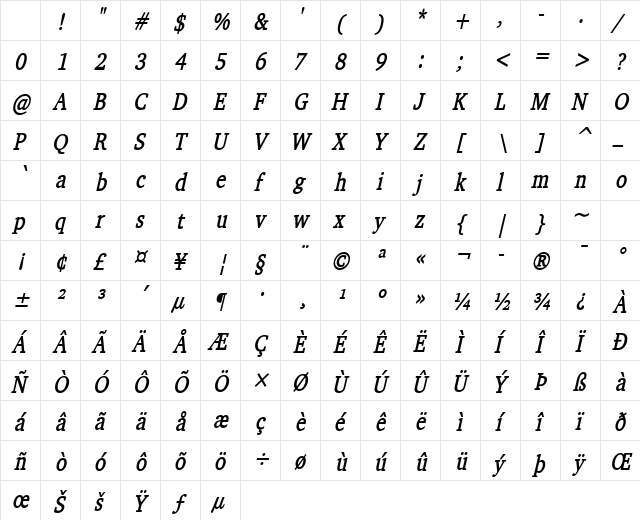
Complete ChallengeCondensed BoldItalic glyph index. Displaying only characters natively supported by ChallengeCondensed BoldItalic font.
ChallengeCondensed is a composed and adaptable typeface that performs quietly and consistently across a wide range of design contexts. The slanted form adds forward momentum and visual energy. Its bold stroke weight gives it real presence on the page. Its narrow stance lets it pack a punch even in space-constrained designs.